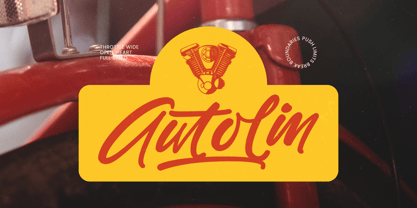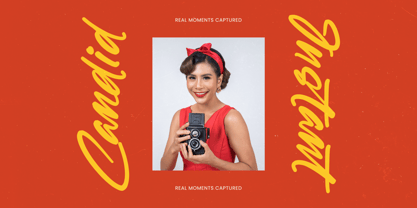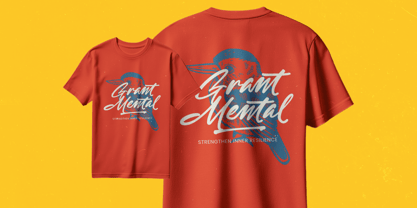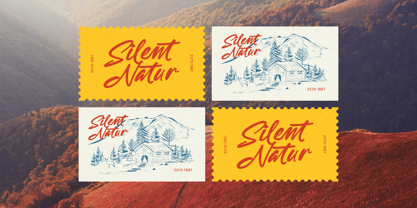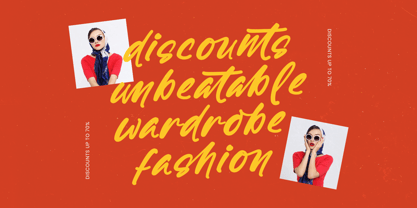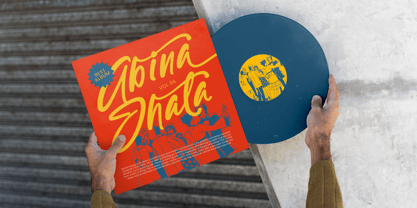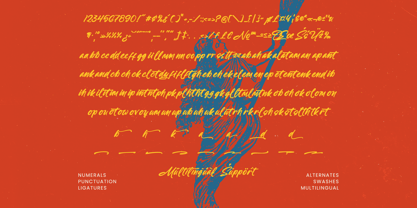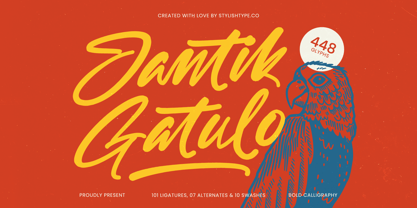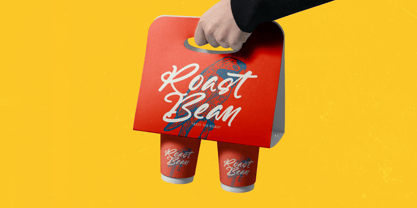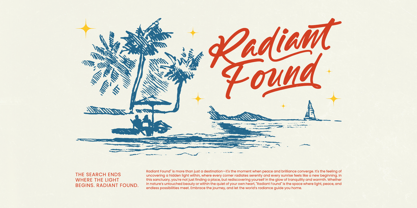
Jantik Gatulo
by Stylishtype Studio
The Jantik Gatulo Font Family was designed by Heru Utama Putra and published by Stylishtype Studio. Jantik Gatulo contains 2 styles and family package options.